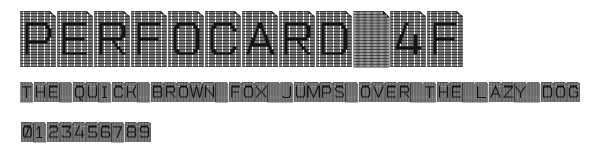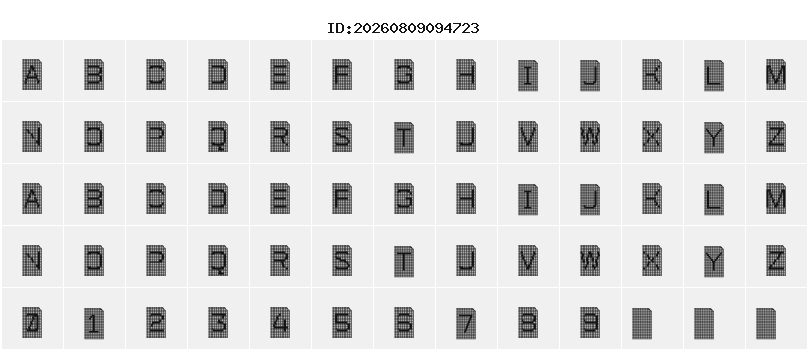
• Font Name: Perfocard 4F
• Designer: Ткаченко Сергій Сергійович
• Manufacturer: Ткаченко Сергій Сергійович (Кременчук, Україна)
About Perfocard 4F.ttf
Perfocard 4F.ttf is a modern, elegant sans-serif font designed for ultimate readability and visual harmony. Perfect for branding, headlines, web design, and print materials.